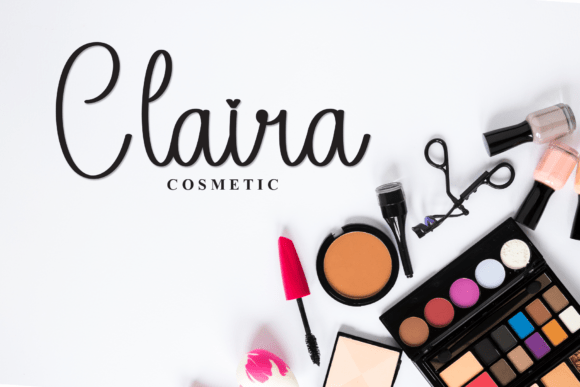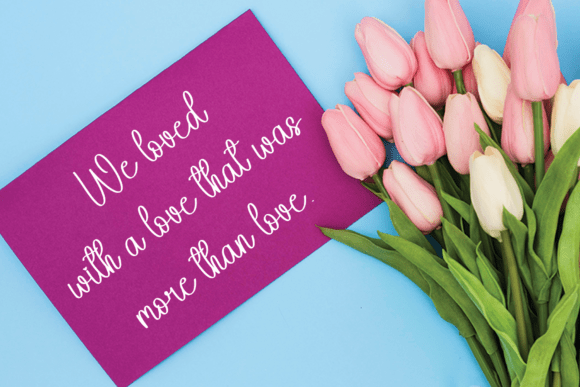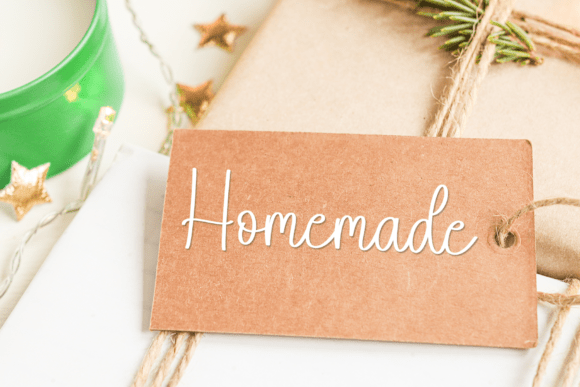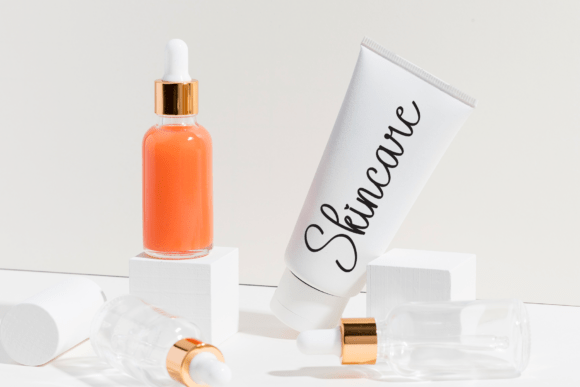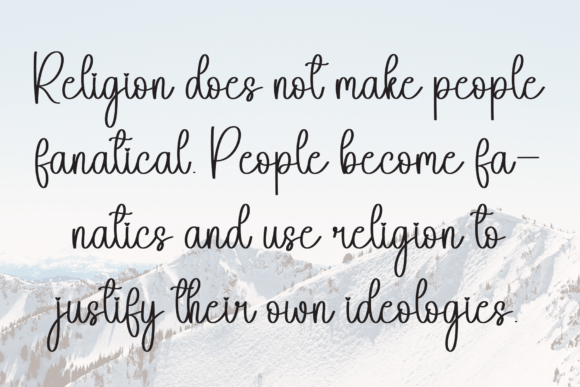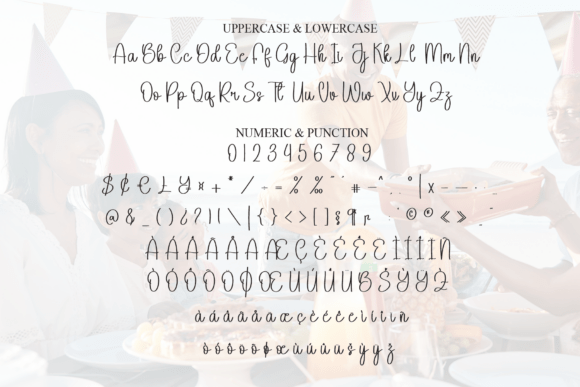
Introducing Sweet and Friendly: The Magical Birthday Vacation Font
Are you looking for a font that can add a touch of magic to your paper crafts, wedding invitations, or greeting cards? Look no further than Sweet and Friendly, a handcrafted display font that is sure to captivate your audience. With its unique blend of charm and energy, this font is perfect for designers and crafters who want to create memorable and eye-catching designs.
The Allure of Sweet and Friendly
Sweet and Friendly is a one-of-a-kind font that boasts a captivating presence with each character. Its handcrafted design gives it a personal touch that is hard to find in digital fonts. The font’s magical appeal is evident in its flowing lines and curvaceous strokes, which give it a lyrical elegance that is sure to mesmerize. Whether you’re creating a birthday vacation invitation or a wedding announcement, Sweet and Friendly is the perfect choice.
Infuse Vivacious Flair into Your Paper Crafts
Sweet and Friendly is more than just a font – it’s a design experience. With its intoxicating combination of charm and energy, this font can transform mundane paper crafts into works of art. Imagine creating a wedding invitation that sets the tone for a romantic and unforgettable celebration. Or, picture a greeting card that conveys your heartfelt emotions in a way that feels personal and sincere. Sweet and Friendly makes it all possible.
Metamorphose Your Designs with Sweet and Friendly
The power of Sweet and Friendly lies in its ability to metamorphose your designs into mesmerizing works of art. This font has a way of elevating even the simplest designs into something extraordinary. Whether you’re a seasoned designer or a crafty DIY enthusiast, Sweet and Friendly is the perfect tool to help you create designs that leave a lasting impression.
The Lyrical Elegance of Sweet and Friendly
One of the standout features of Sweet and Friendly is its masterly articulated script. Each character is carefully crafted to create a flowing and harmonious design that is a joy to behold. The font’s lyrical elegance is perfect for creating designs that feel sophisticated and refined. Whether you’re creating a formal wedding invitation or a playful birthday card, Sweet and Friendly is up to the task.
Experience the Ravishingly Cozy Appeal of Sweet and Friendly
Sweet and Friendly is more than just a font – it’s an experience. With its ravishingly cozy and unconstrained appeal, this font invites you to explore your creative side and push the boundaries of design. Whether you’re a designer, crafter, or DIY enthusiast, Sweet and Friendly is the perfect companion for your creative journey.
Why Choose Sweet and Friendly?
So why choose Sweet and Friendly over other fonts? Here are just a few reasons:
- Unique Design: Sweet and Friendly is a one-of-a-kind font that boasts a unique design that is sure to captivate your audience.
- Handcrafted: Each character is carefully handcrafted to create a personal and sophisticated design.
- Magical Appeal: Sweet and Friendly has a magical appeal that is sure to mesmerize your audience.
- Versatile: This font is perfect for a wide range of design projects, from wedding invitations to greeting cards and paper crafts.
Get Ready to Fall in Love with Sweet and Friendly
If you’re looking for a font that can add a touch of magic to your designs, look no further than Sweet and Friendly. With its captivating presence, lyrical elegance, and ravishingly cozy appeal, this font is sure to steal your heart. So why wait? Experience the beauty and charm of Sweet and Friendly today and take your designs to the next level.
In conclusion, Sweet and Friendly is a one-of-a-kind font that is sure to captivate your audience. With its unique design, handcrafted appeal, and magical charm, this font is perfect for designers and crafters who want to create memorable and eye-catching designs. Whether you’re creating a wedding invitation, greeting card, or paper craft, Sweet and Friendly is the perfect choice. So why wait? Fall in love with Sweet and Friendly today and experience the beauty and charm of this amazing font.